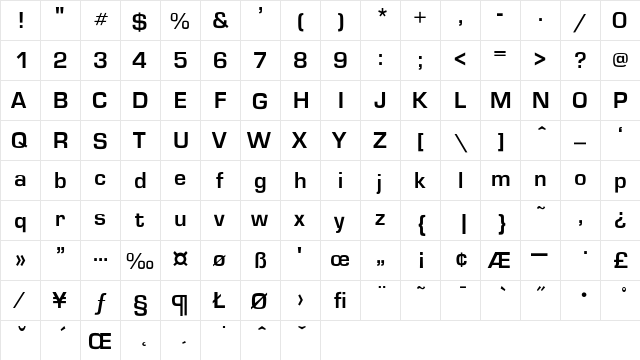
Eurostylish Regular
Design Context for Eurostylish Typeface
Eurostylish is a composed and adaptable typeface that performs quietly and consistently across a wide range of design contexts.
Pro Tip: Use Eurostylish in both headline and body roles to test its range before committing to a single application.